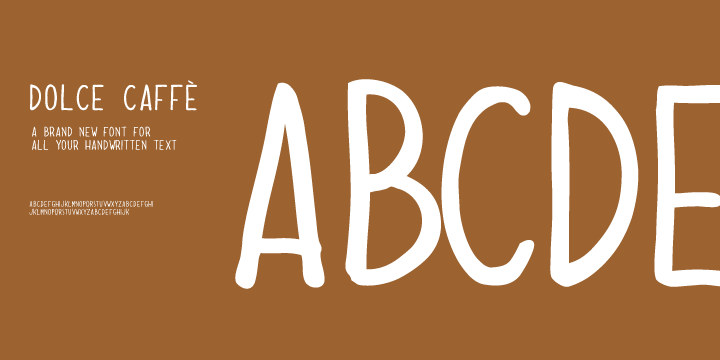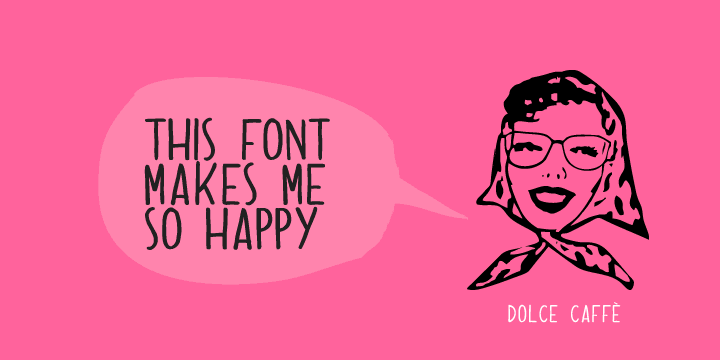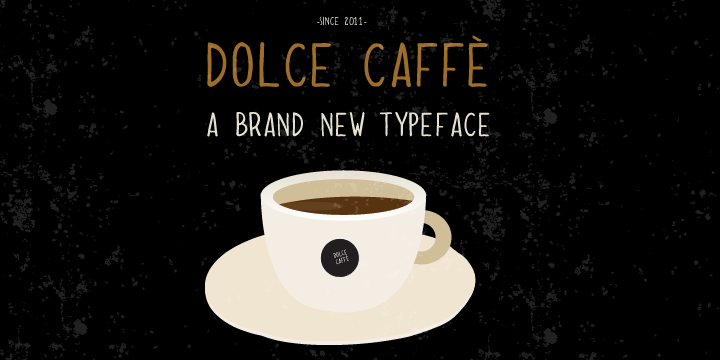
Dolce Caffé is a hand display font family. This typeface has three styles and was published by Resistenza.es.
Dolce Caffé is pretty hand-written font that is very legible and high in style and carefully constructed all-uppercase letters. Has been designed in the 2011. Was totally inspired by hand written chalkboards in berlin. City that i do love.
All the glyphs are designed by hands first, and than vEctorized with Illustrator CS5. Use this typeface when you need a neatly handwritten style. uppercase only!